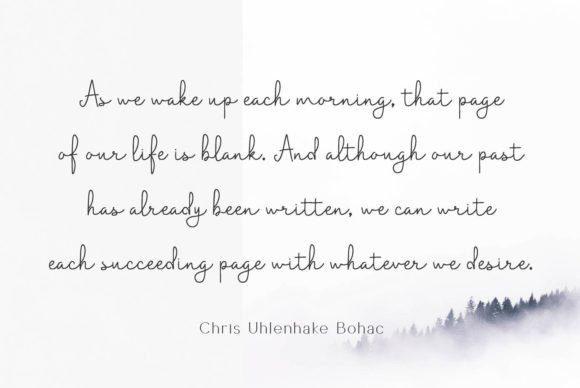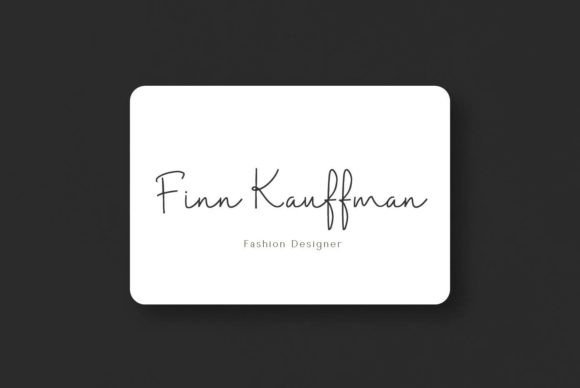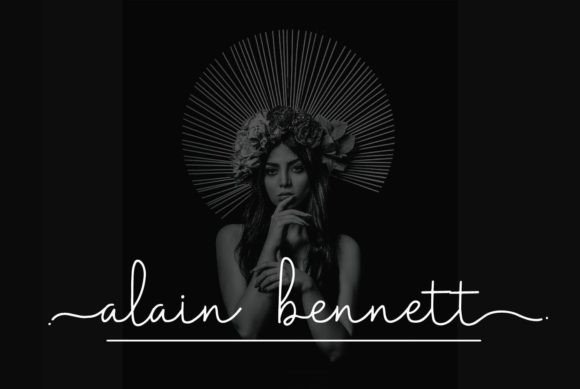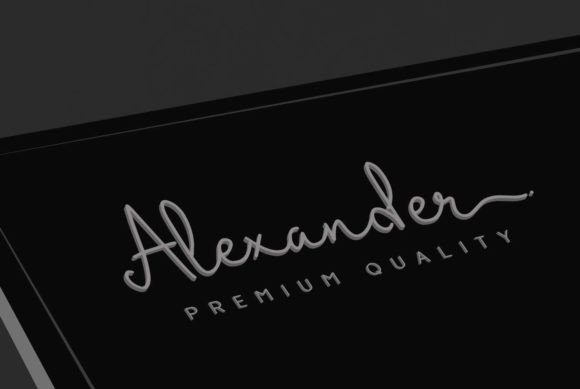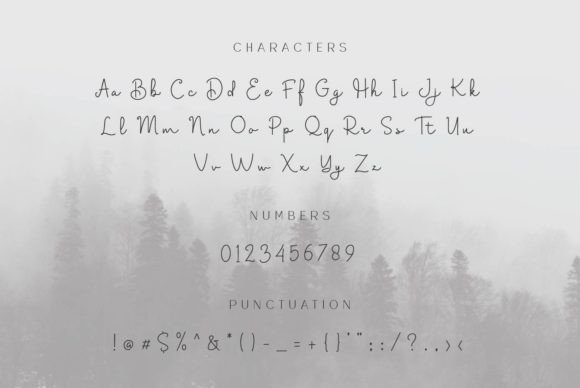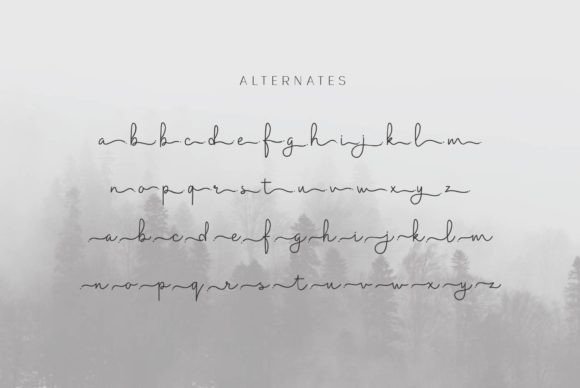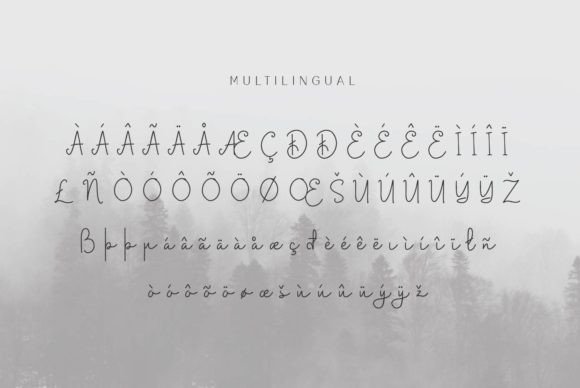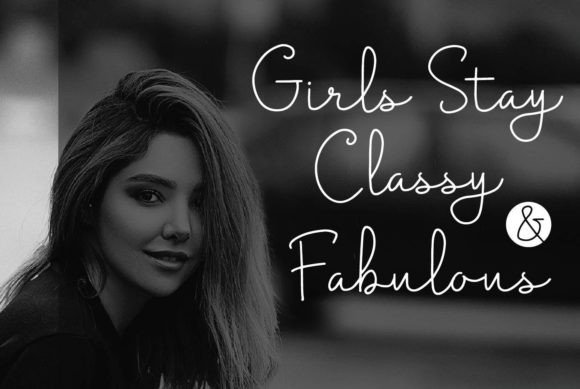
Selimut Pagi Font
About Selimut Pagi Font
“Selimut Pagi” is a delicate and well-rounded handwritten font designed to bring an authentic touch to your crafty projects. Ideal for various creative endeavors, this font is particularly well-suited for applications such as wedding invitations, birthday cards, personal branding, elegant logos, and more. By incorporating “Selimut Pagi” into your designs, you can be confident that your creations will stand out with an authentic and charming typography.
The delicate and well-rounded qualities of “Selimut Pagi” make it versatile for a range of projects. Its handwritten style adds a personal and human touch, making it ideal for conveying warmth and authenticity in your designs.
Whether you’re creating wedding invitations that require an elegant and personalized feel, designing birthday cards with a crafty touch, or establishing a personal brand identity, “Selimut Pagi” can be the typography solution that adds uniqueness to your projects.
The authentic typography of “Selimut Pagi” lends itself to creating a distinctive visual language. Its well-rounded and balanced design ensures that the font complements a variety of design elements, allowing it to seamlessly integrate into different contexts.
In summary, “Selimut Pagi” is more than just a font; it’s a versatile and expressive tool that can enhance your crafty projects. Utilize it for its delicate and well-rounded handwritten style to add authenticity and charm to your designs, making them stand out with an elegant and appealing touch.